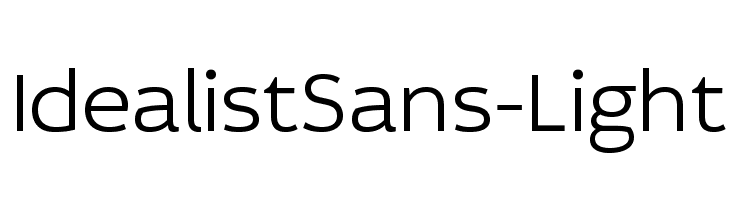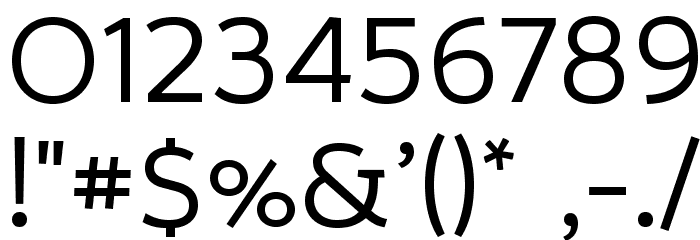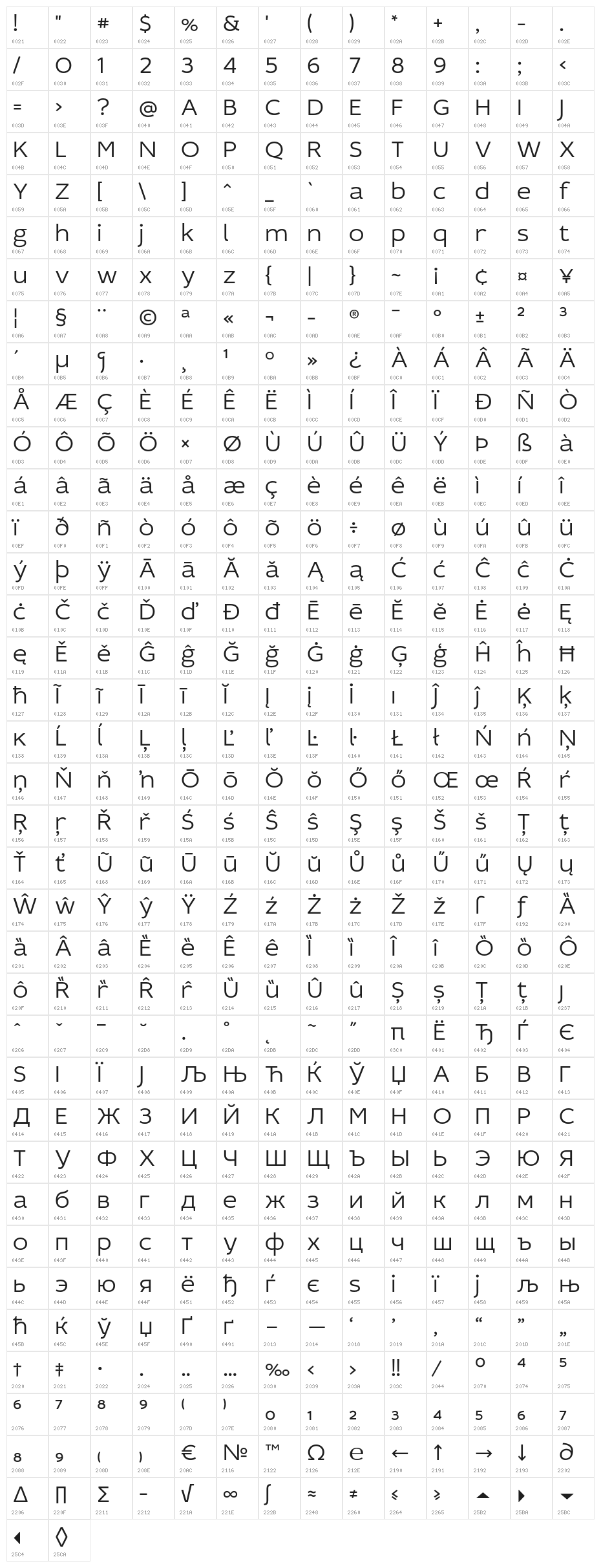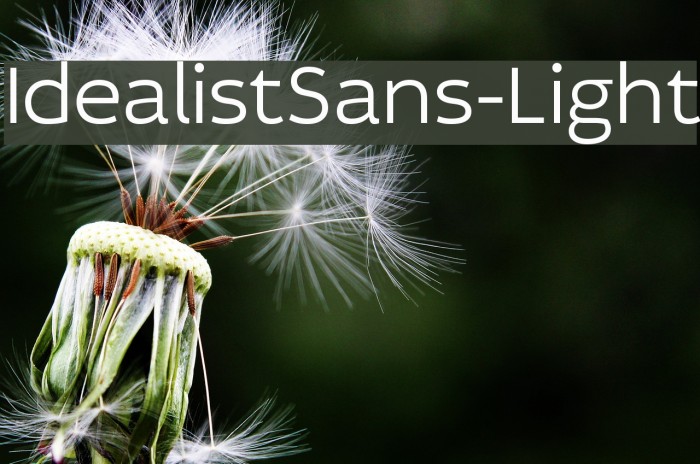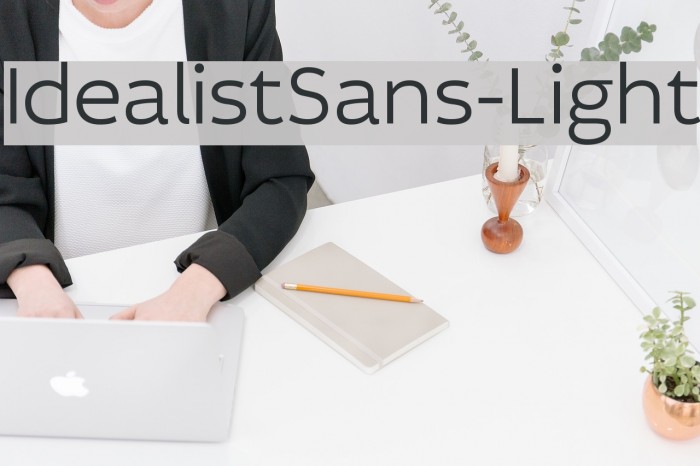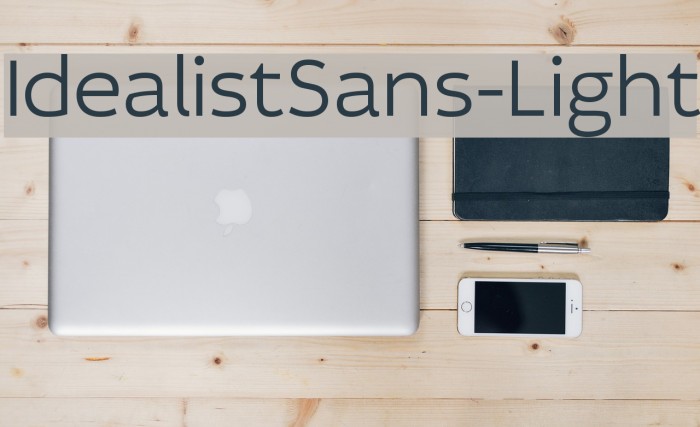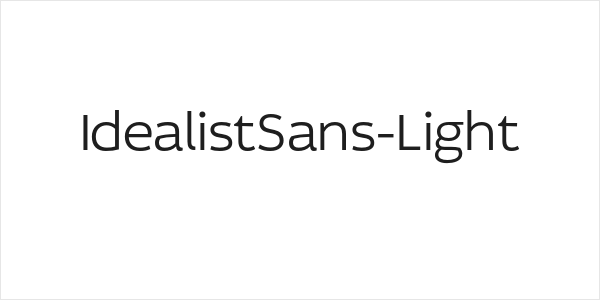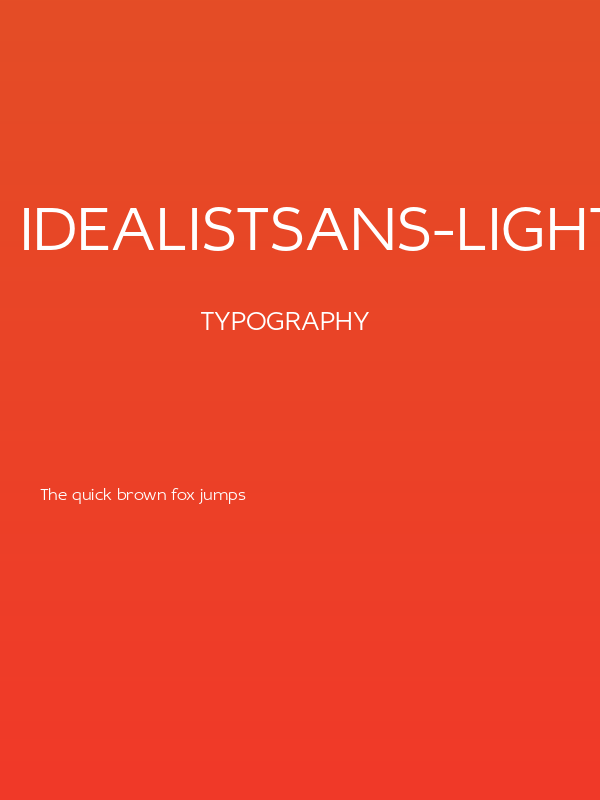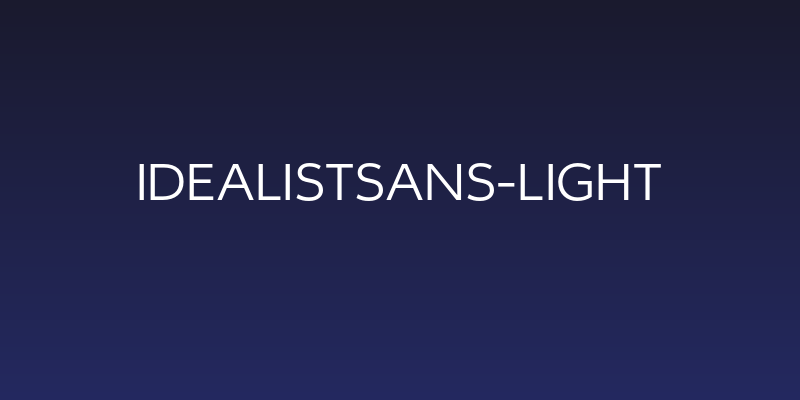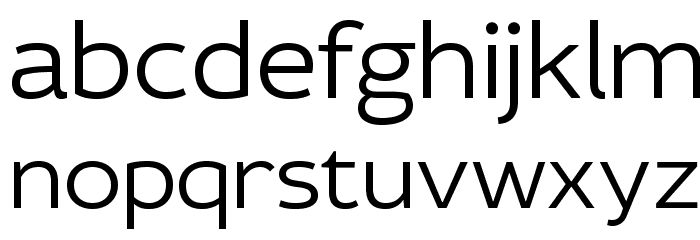
IdealistSans-Light Font
IdealistSans-Light Description
This font features a clean and modern sans-serif design, characterized by its light weight and smooth curves. The characters are evenly spaced, providing a balanced and harmonious appearance. The uppercase letters are bold and confident, while the lowercase letters maintain a friendly and approachable feel. The numerals are clear and easy to read, making them suitable for various applications. Special characters are well-integrated, ensuring consistency across all glyphs. The overall style is minimalist, making it versatile for both digital and print media.